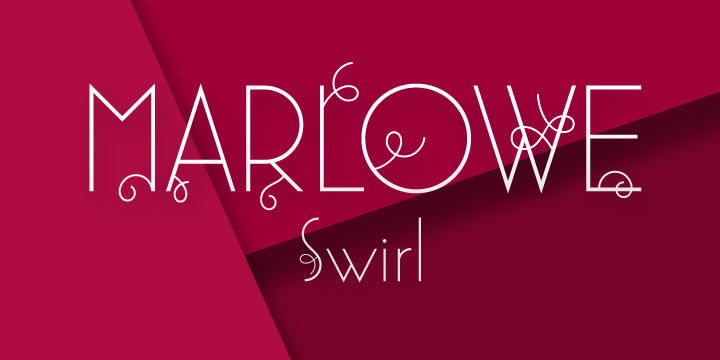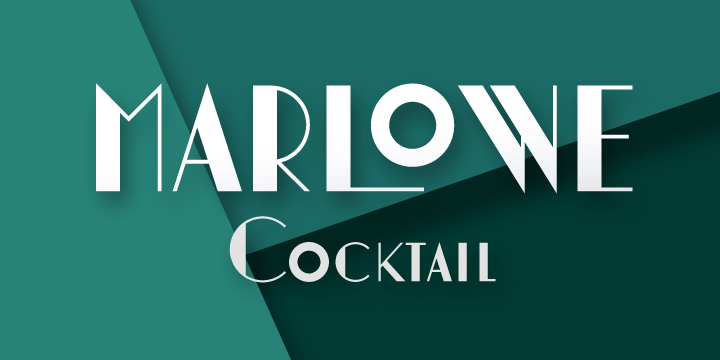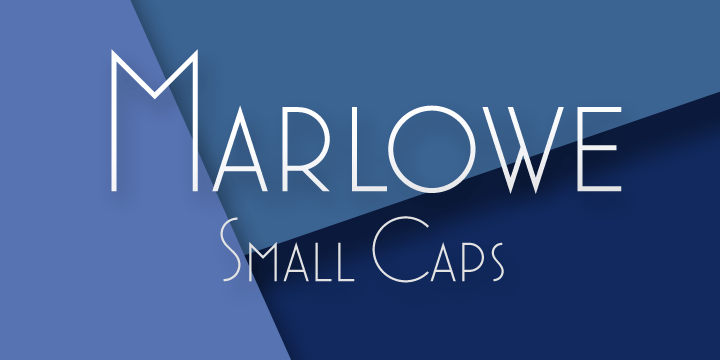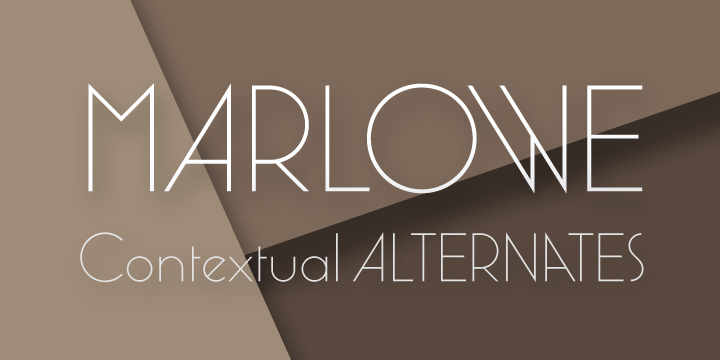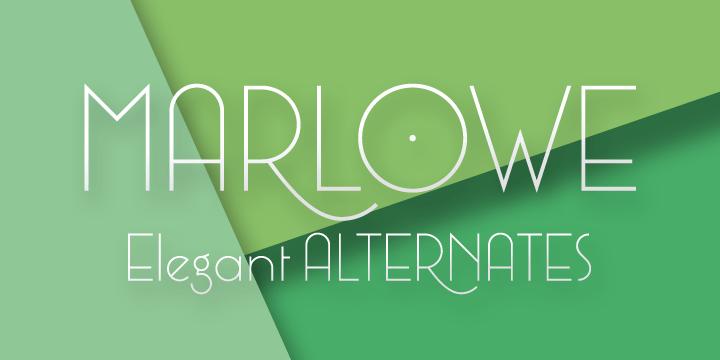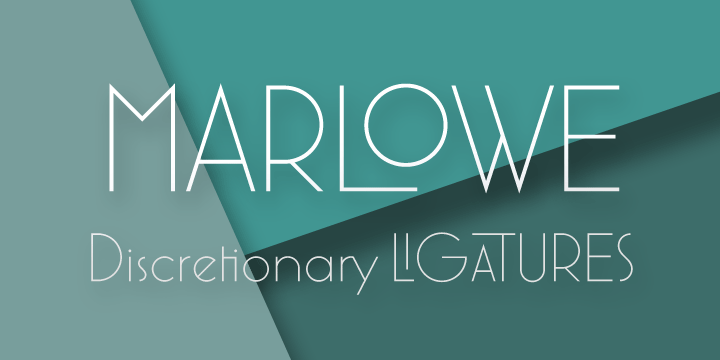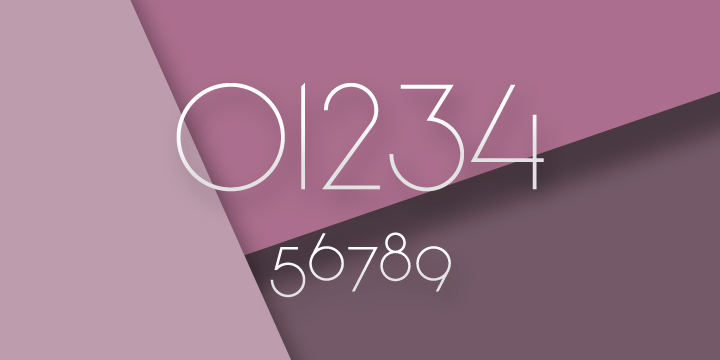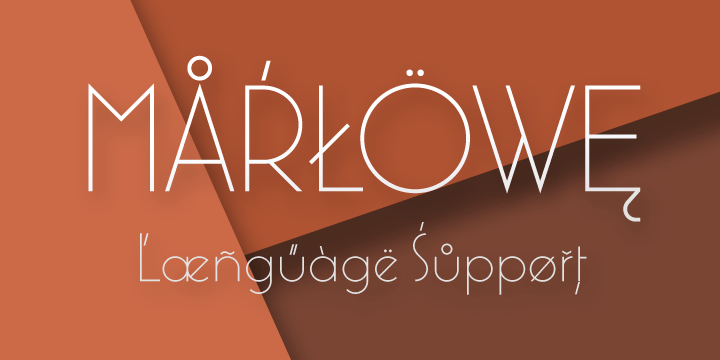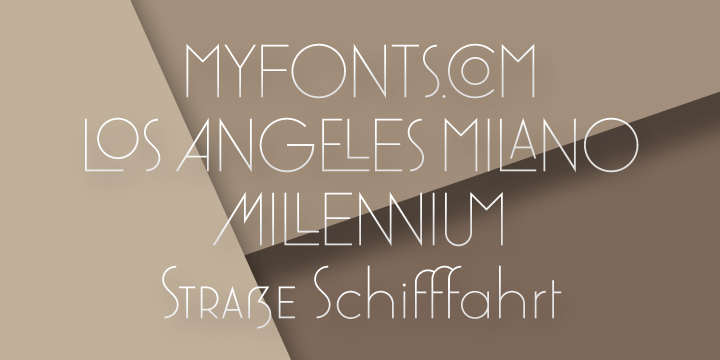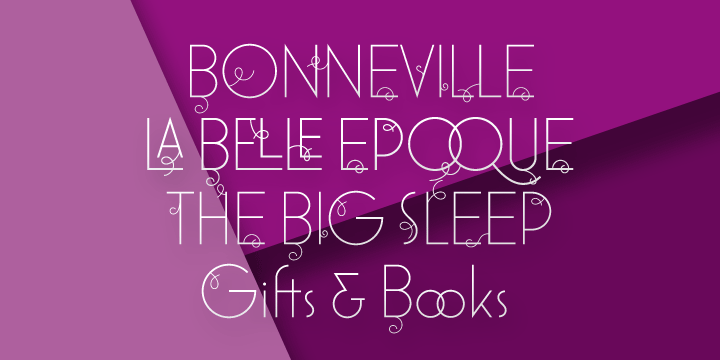
Marlowe is the rat pack of fonts: Regular is perfect for headlines and subtitles, while the expressive Escapade, Swirl and Cocktail styles are charming display fonts. All four provide an extended set of capitals, small caps and lower case characters.
Please take a close look at the elegant alternate letters for A, E, K, M, N, O, Q, R, W and g – there are even three kinds of ampersands to chose from.
Altogether Marlowe offers amazing 25 alternates and 74 discretionary ligatures, Marlowe Swirl has additional 26 automated ligatures. Make sure you use applications supporting all these lavish OpenType features.